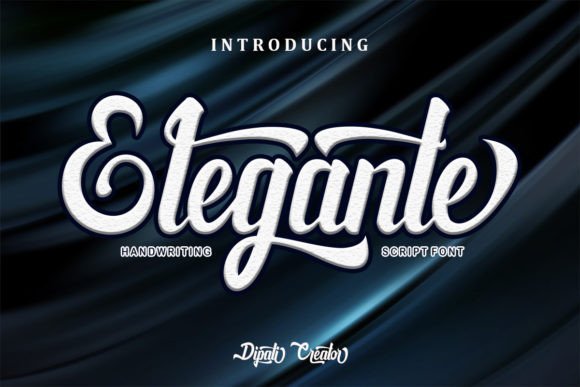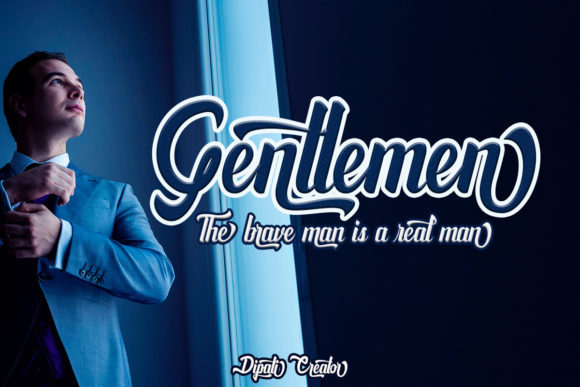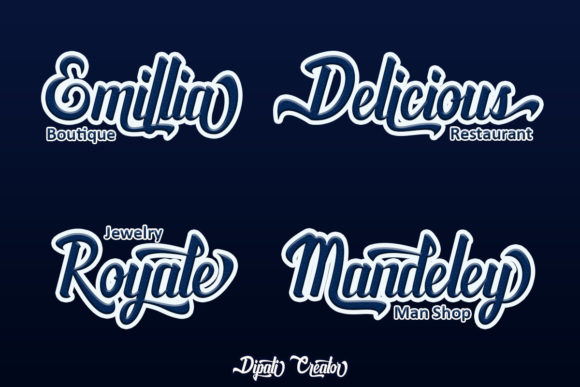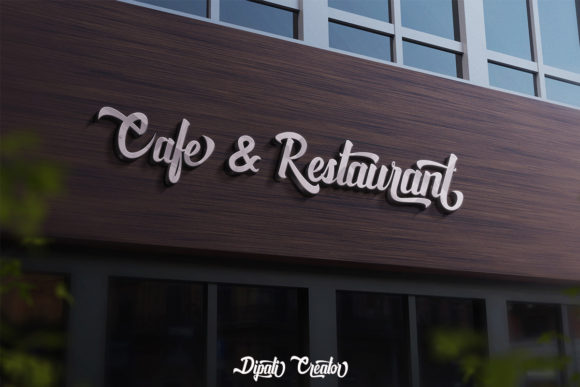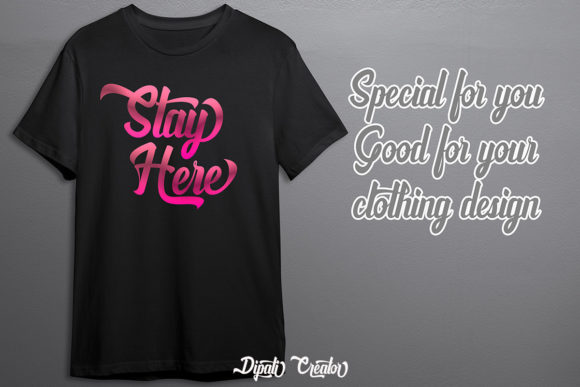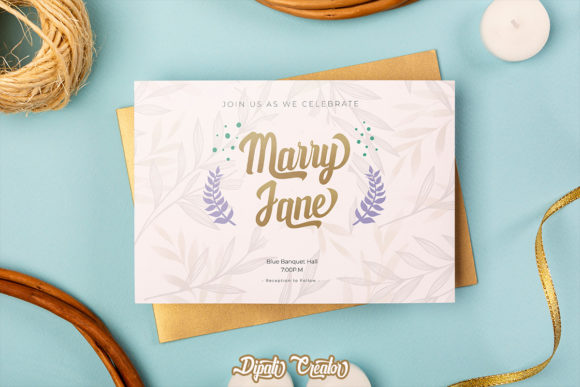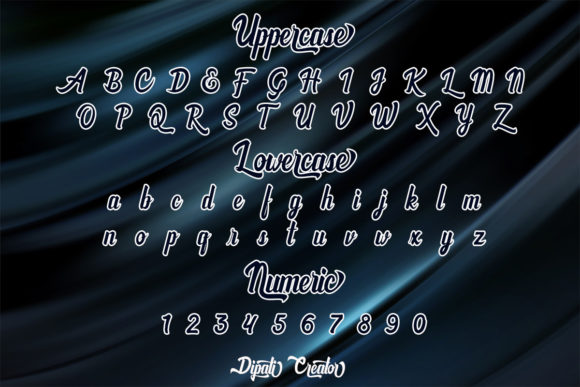
The Perfect Font for the Perfect Moment
Do you ever get that feeling when you’re brainstorming a new design project and you just know exactly what you need to make it pop? For me, it’s the moment when I stumble upon the perfect font. Recently, I discovered the Elegante Font, and I’m still swooning over its elegant style. This lovely script font is a must-have for any designer looking to add a touch of sophistication to their work.
The Elegante Font is designed to help you create stunning wedding invitations, beautiful stationery, and eye-catching social media posts. Its PUA encoded feature makes it easy to access all of the glyphs and swashes, giving you endless possibilities for customization. As a designer, you’ll appreciate the value of this font in elevating your designs and setting them apart from the rest. With the Elegante Font, you’ll be able to create truly unique and memorable designs that leave a lasting impression.
Elegante Font Key Features
- Font Size: The font family includes 8 weights, ranging from Extra Light (100) to Extra Bold (800), providing ample flexibility for various design applications.
- Unique Characteristics: The font features a unique blend of elegance and sophistication, making it perfect for high-end branding, luxury packaging, and premium publications.
- Glyphs and Characters: The font includes over 1,000 glyphs and characters, including a wide range of ligatures, ornaments, and symbols, to enhance typographic expression and creativity.
Elegante Font Review
Overall, I think the Elegante Font is a decent choice for those looking for a elegant, high-end feel in their designs. Here are some of its strengths:
- ✨ Beautiful, intricate details: The font features a range of elegant flourishes and ornate details that add a touch of sophistication to any design.
- ✨ Versatile: Elegante Font comes in a range of weights and styles, making it easy to use in a variety of contexts, from headings to body text.
- ✨ High-quality rendering: The font renders beautifully at a range of sizes and resolutions, making it a great choice for print or digital designs.
- ⚠️ Limited language support: Elegante Font only includes support for Latin characters, which may limit its use in designs that require non-Latin scripts.
- ⚠️ Limited OpenType features: While the font includes some basic OpenType features, such as ligatures and kerning, it lacks more advanced features, such as contextual alternates.
Overall, I think the Elegante Font is a solid choice for designers looking for a high-end feel, but it may not be the best choice for more complex or international designs.
Getting the Most Out of Elegante Font
For best results, pair the Elegante font with a simple, clean background to let the elegant typography shine.
The Elegante font is ideal for:
Formal event programs and menus
High-end product labels and packaging
Alternatives to Elegante Font for Designers
Great Vibes Font is a beautiful, elegant script font that is perfect for creating a luxurious and sophisticated feel. It’s ideal for use in wedding invitations, branding materials, and high-end product packaging. Great Vibes Font has a more fluid and cursive feel compared to Elegante Font, which makes it suitable for titles and headings.
Comparison: Great Vibes Font has a more organic and handwritten feel compared to Elegante Font’s more formal and traditional look.
Carolyna Pro Font is a elegant and refined script font that is perfect for creating a high-end and luxurious feel. It’s ideal for use in fashion branding, luxury product packaging, and high-end event invitations. Carolyna Pro Font has a more delicate and feminine feel compared to Elegante Font, which makes it suitable for use in feminine and elegant designs.